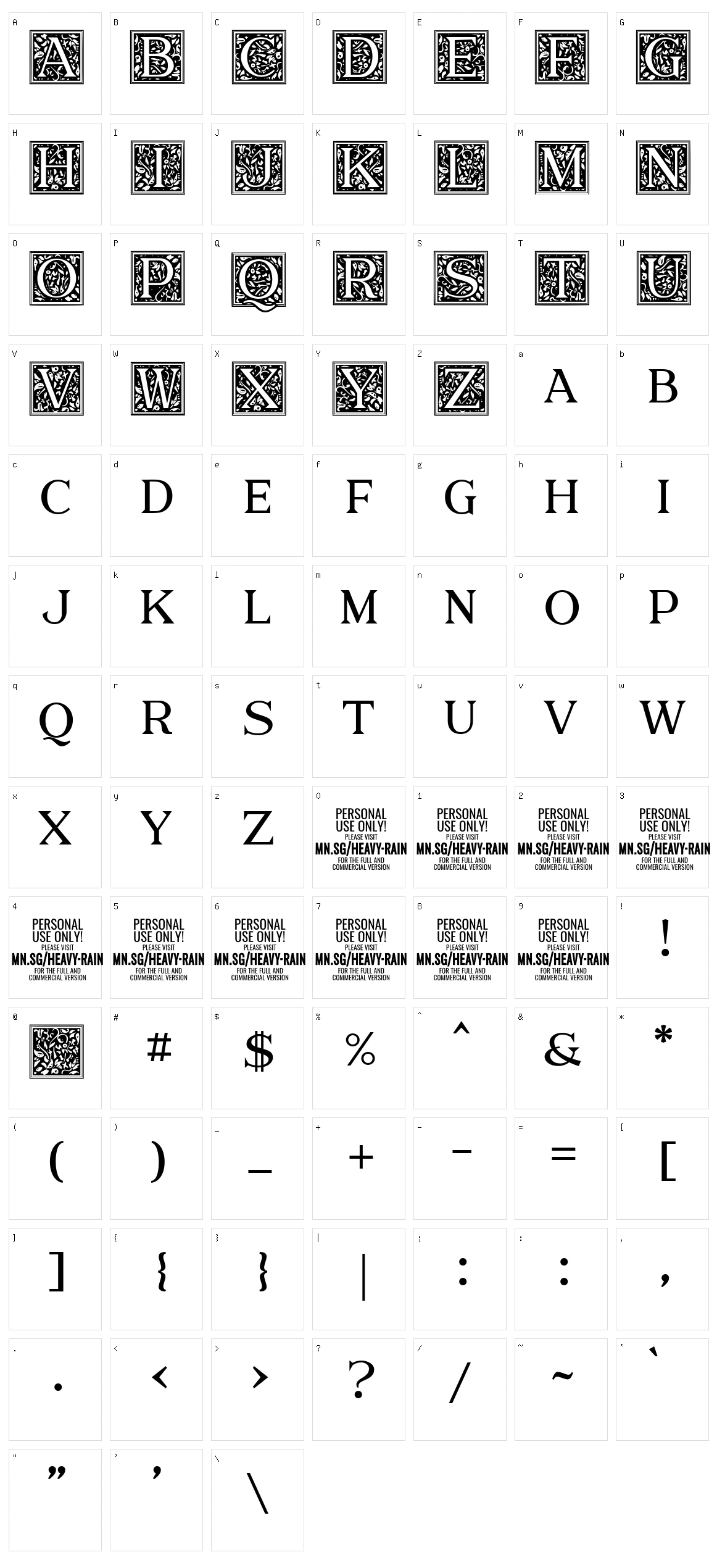
Heavy Rain is a decorative roman typeface.
Drawn and created by Mans Greback during 2020 and 2021, this medieval serif font has a distinct classic style and a historical character.
It gives antiquity to any graphic project, and with its ornamental capitals it accentuates your message.
In addition to the decorated uppercase, it is provided in a regular, simplified text style.